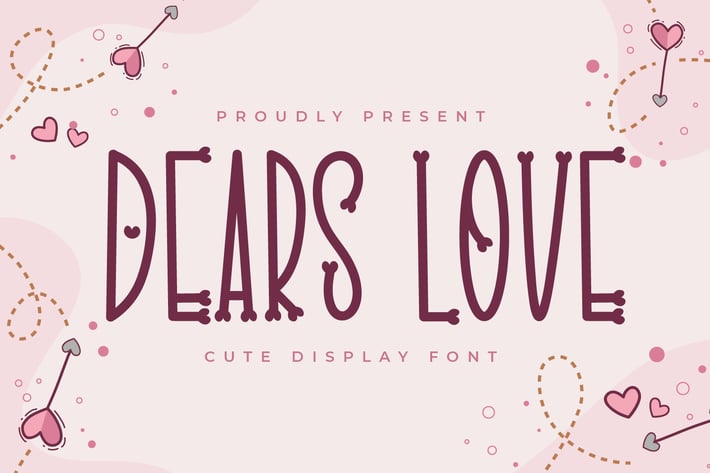
Dears Love - Love Display Font
Introducing Dears Love - Love Display Font
Dears Love is a thin, tall, and romantic display font. It can be employed in a variety of creations. Dears Love will make each of your designs look whimsical and unique.